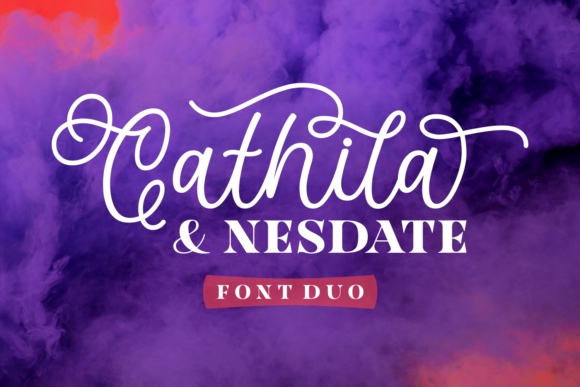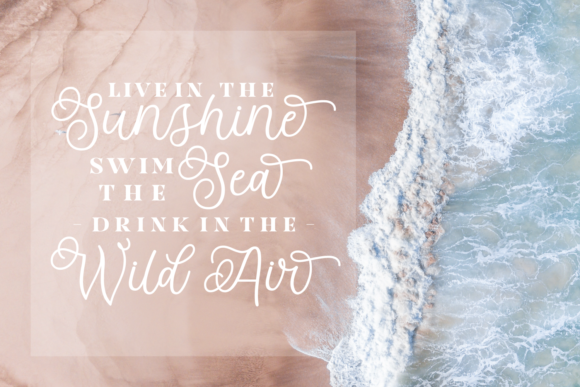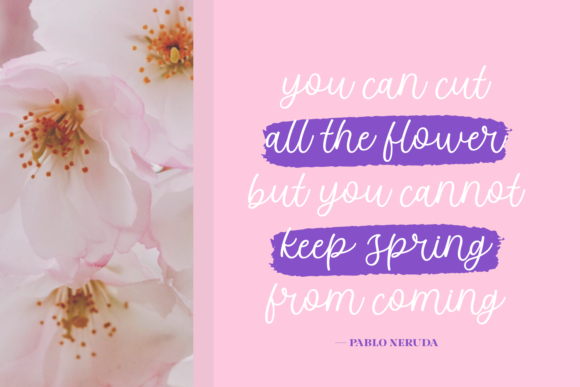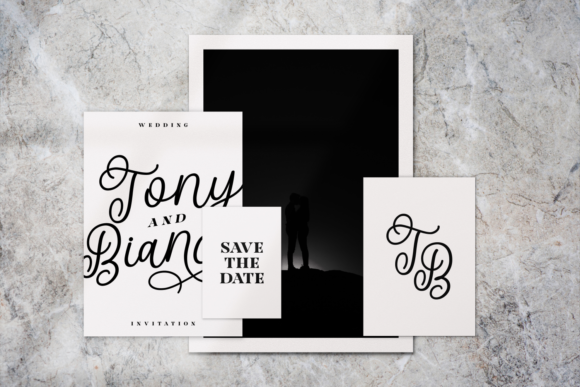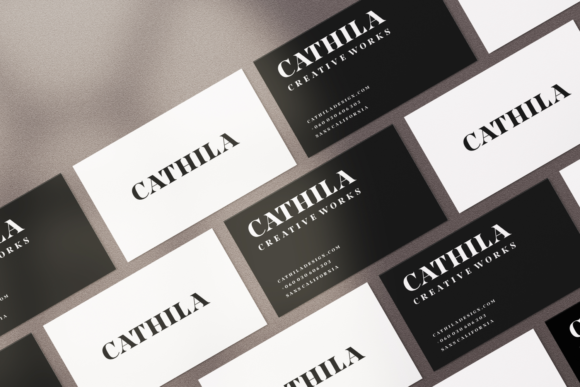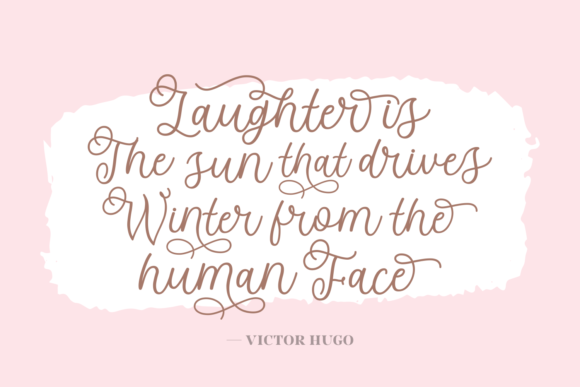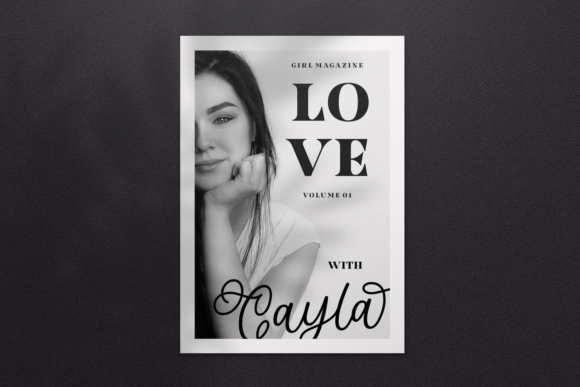
Cathila & Nesdate Font
The Cathila & Nesdate Font Duo is a stunning duo that consists out of a carefully hand-crafted script font, combined with a neat, playful serif font.
Cathila and Nesdate are the perfect fonts to combine together for a large range of designs.